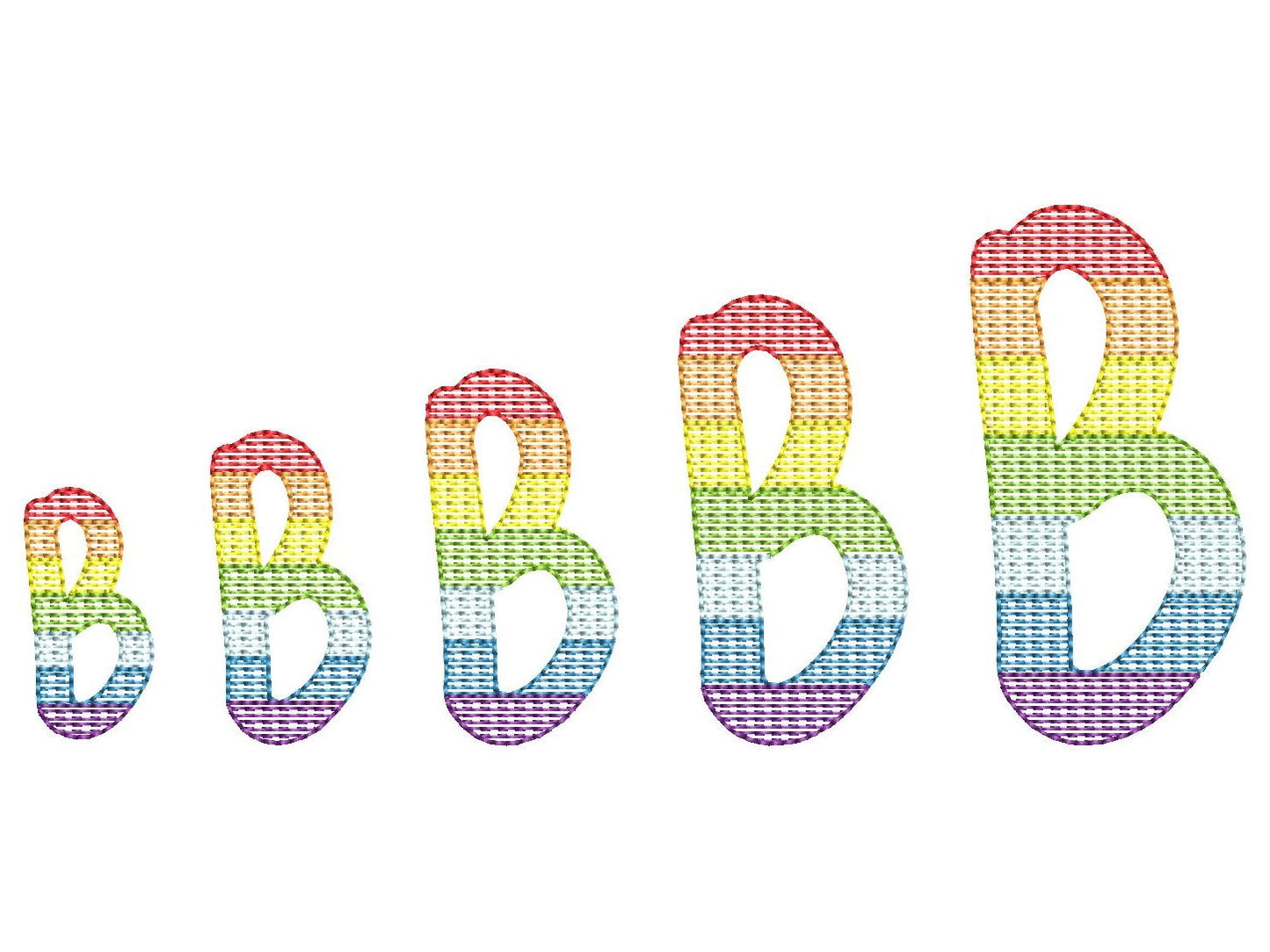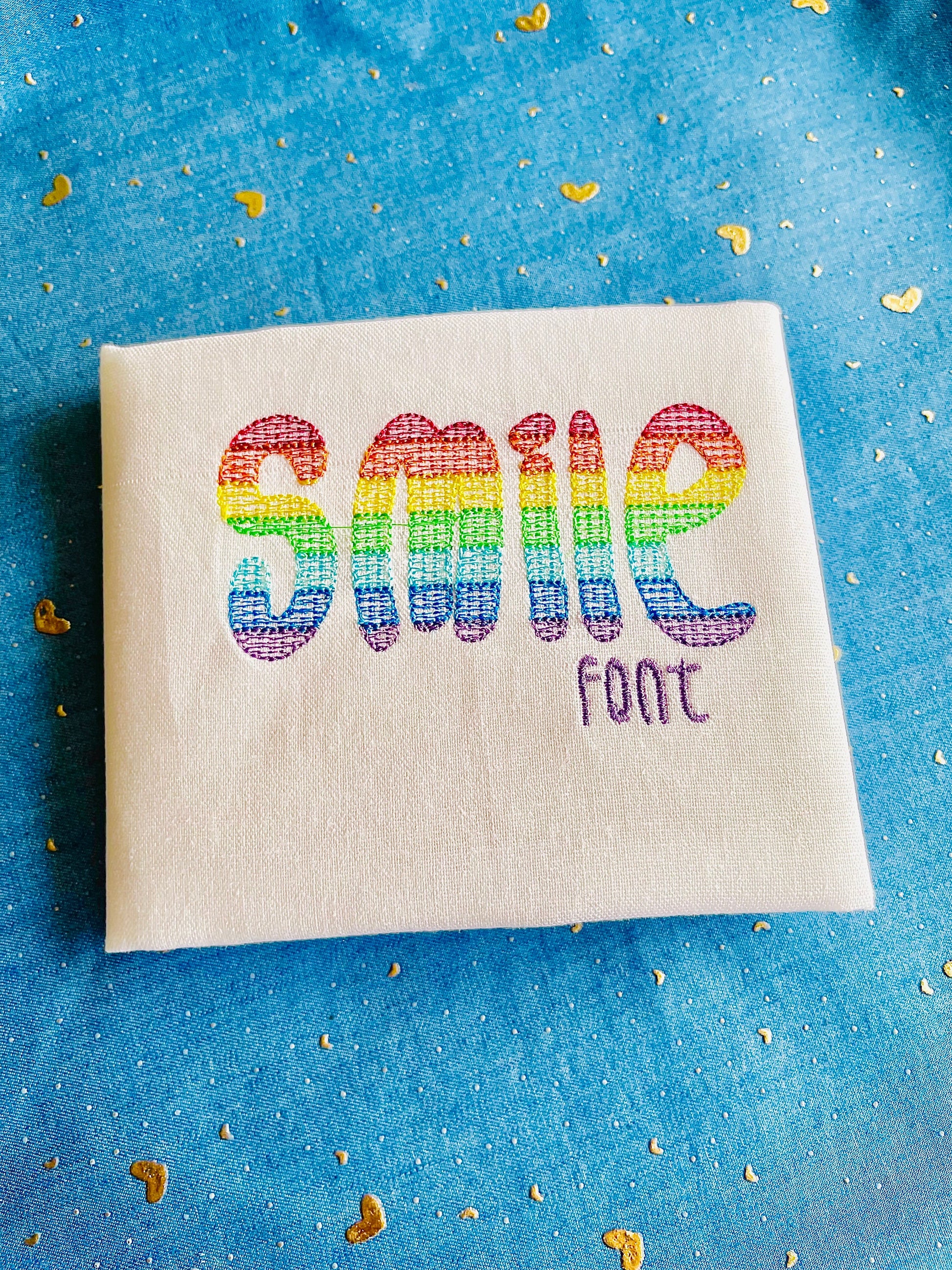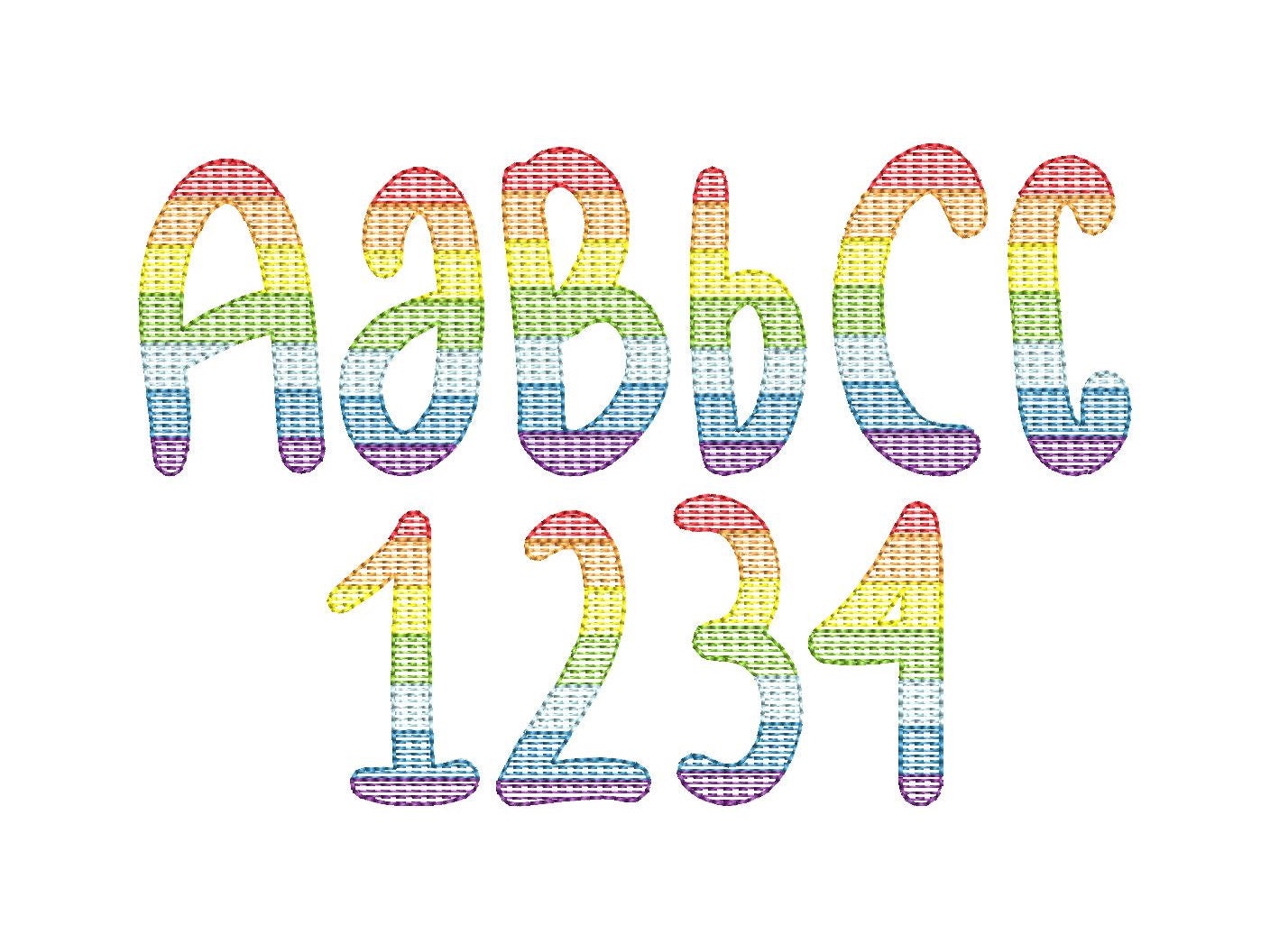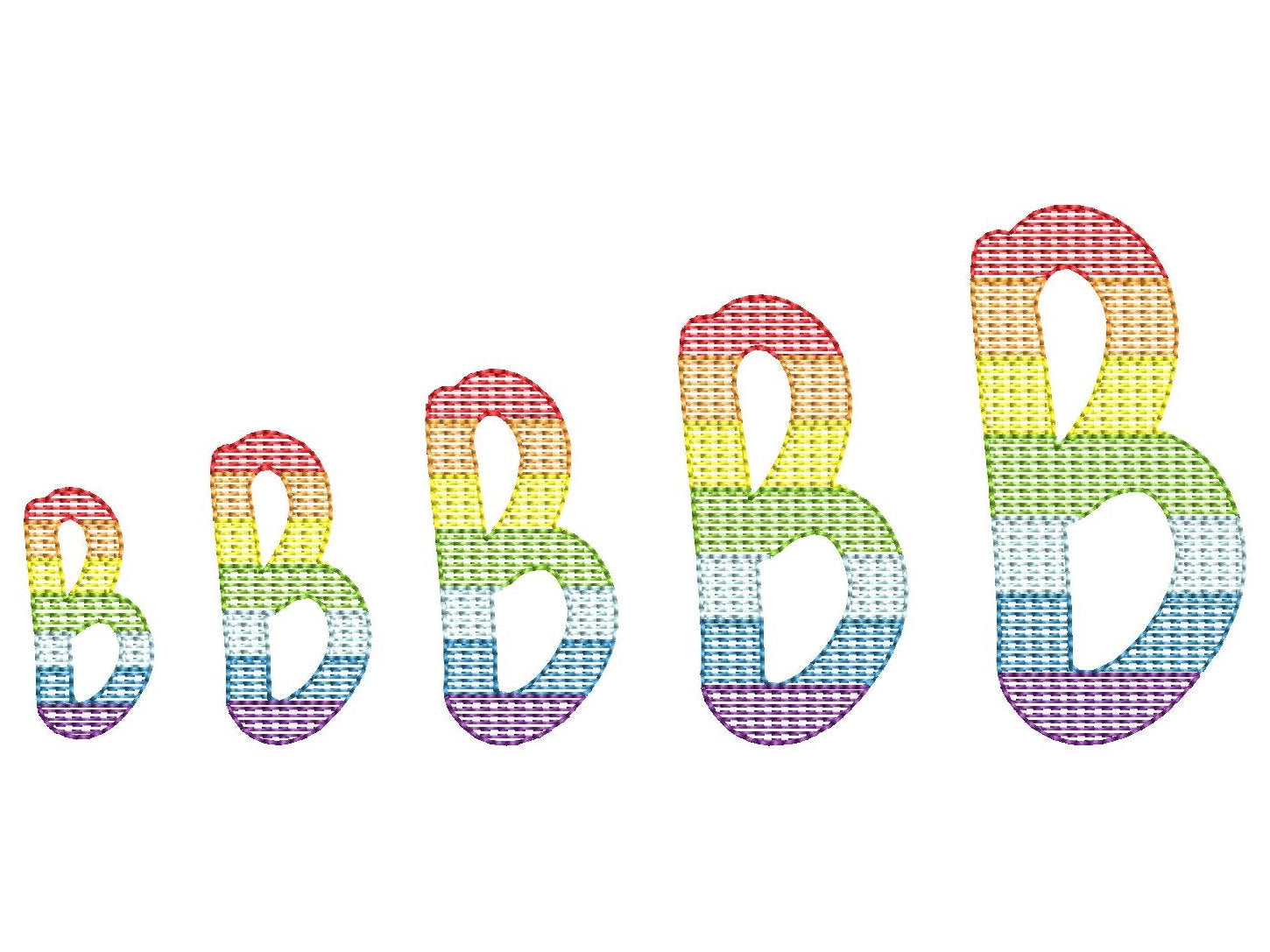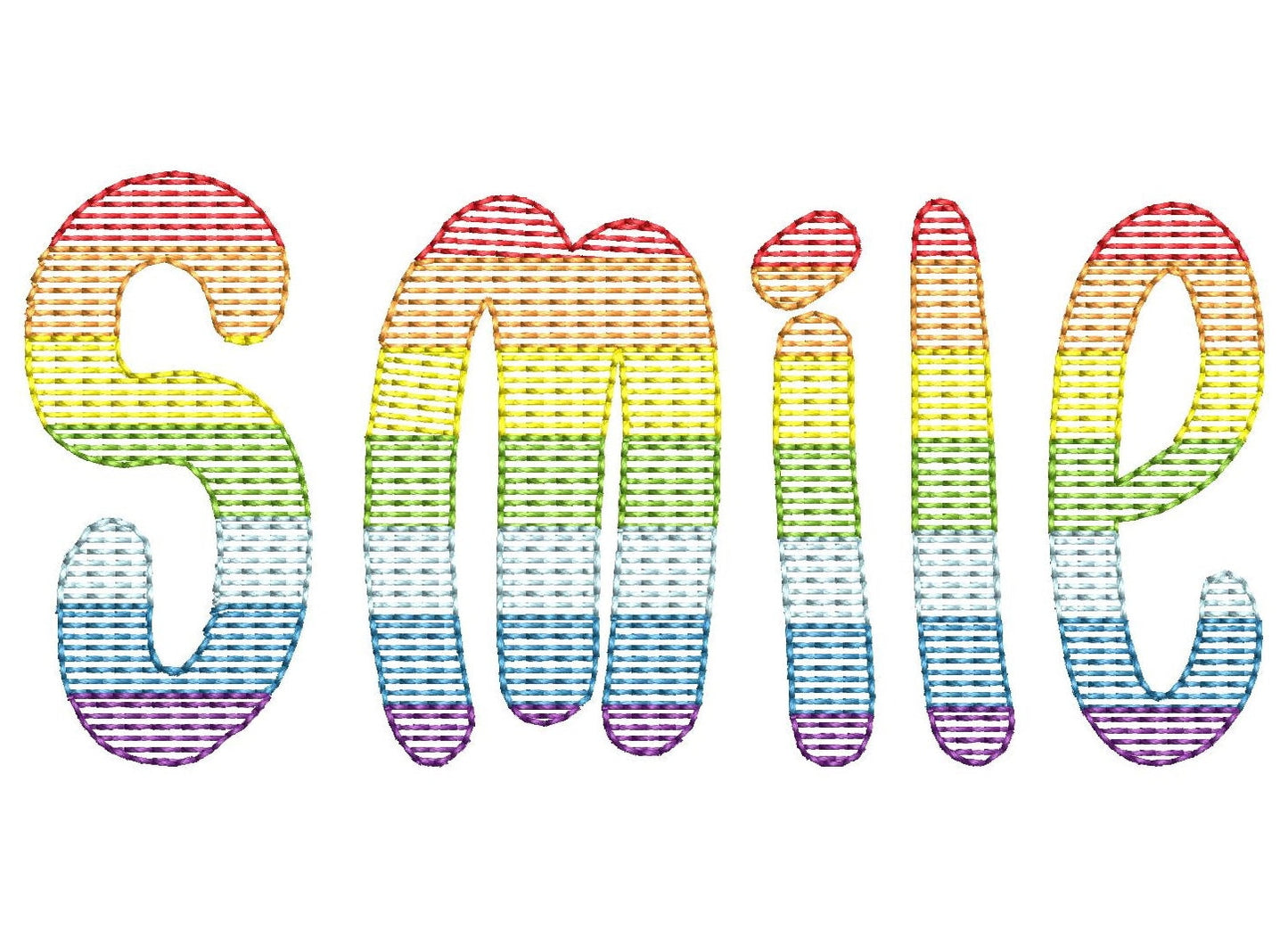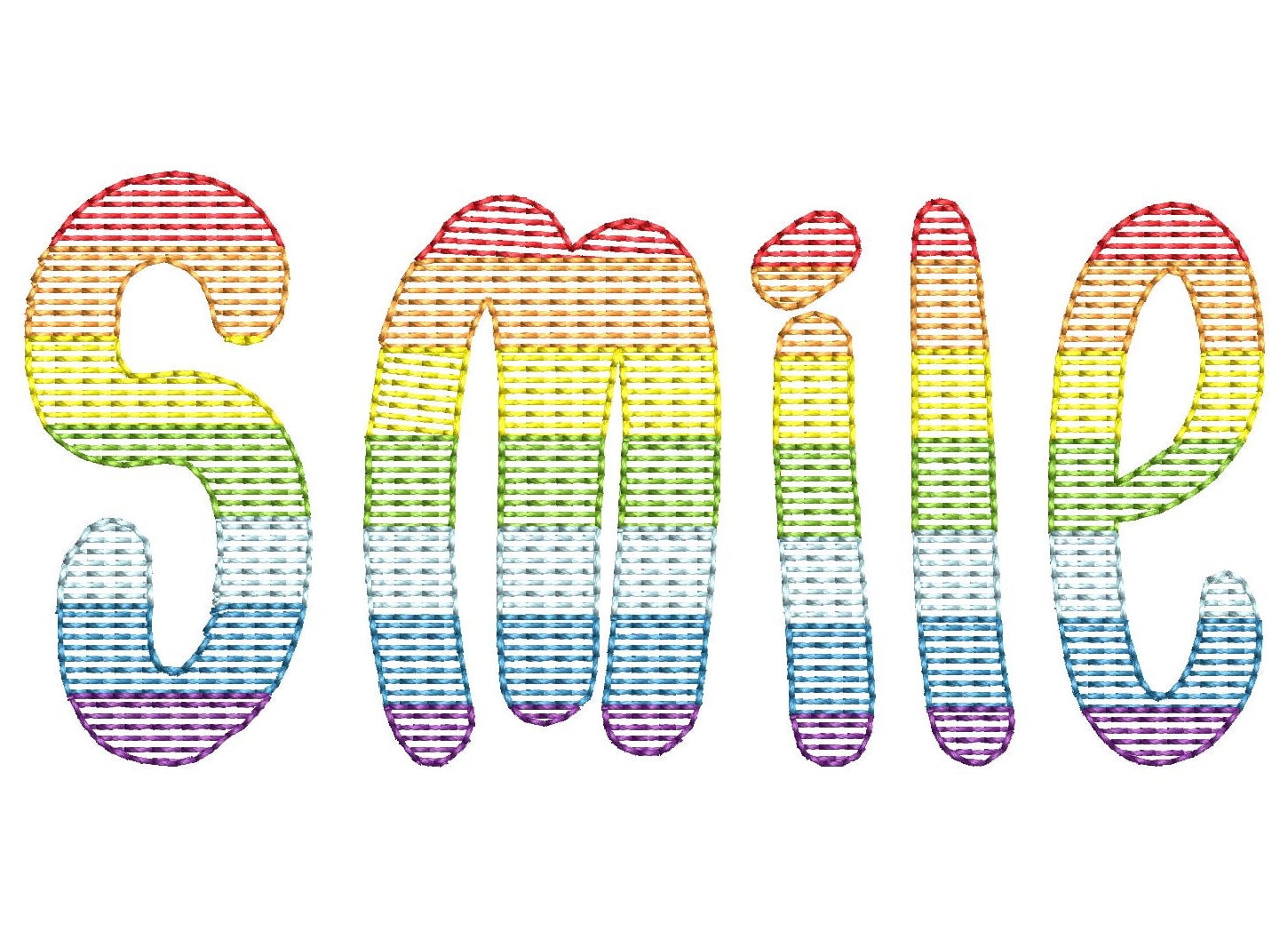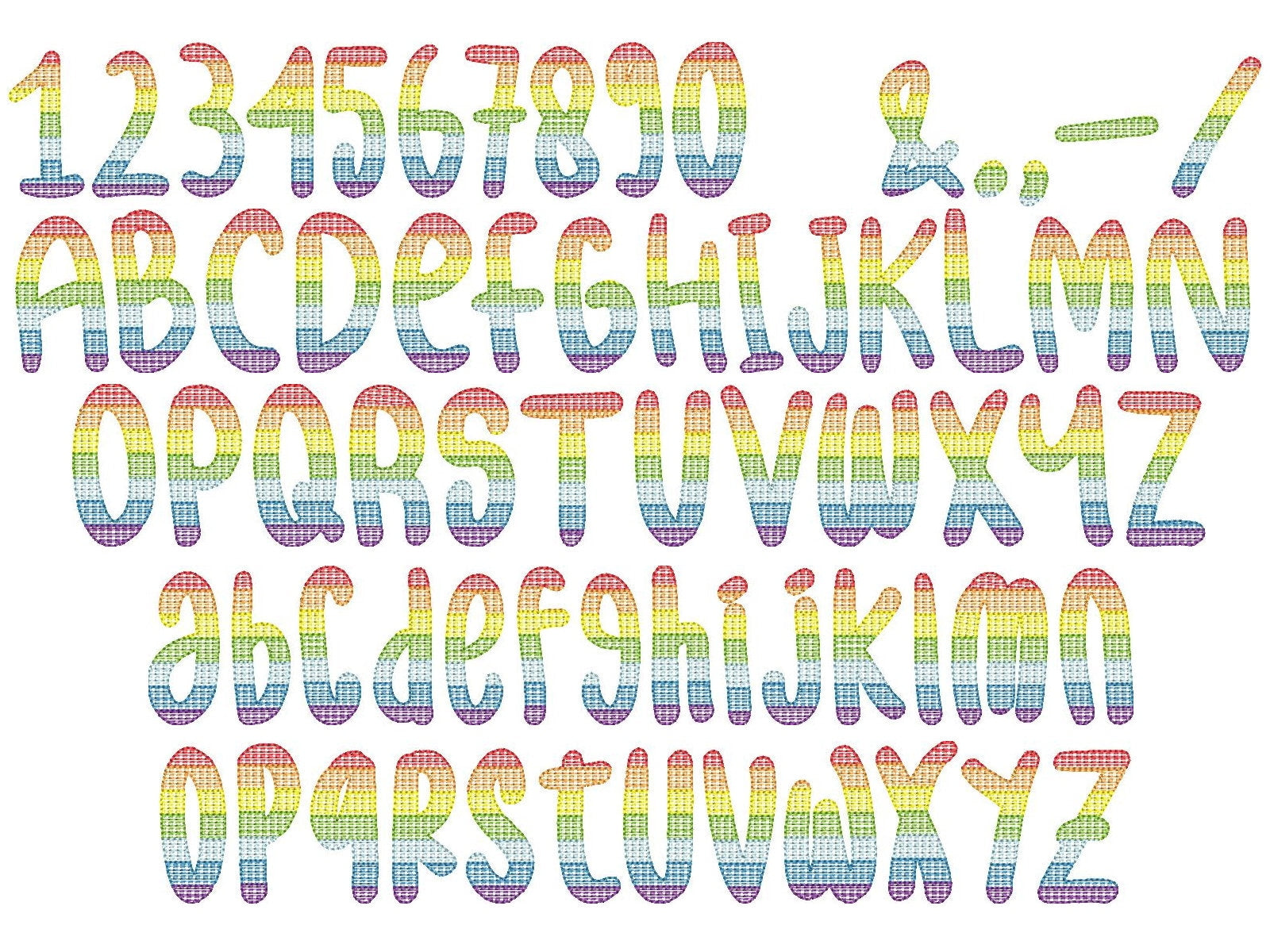
This font is a quick stitch and it has a low density / light fill stitch and bean stitch outline, it looks best on white or light colors.
The background fabric looks through. Stunning effect!
Uppercase and lowercase letters, numbers and punctuation